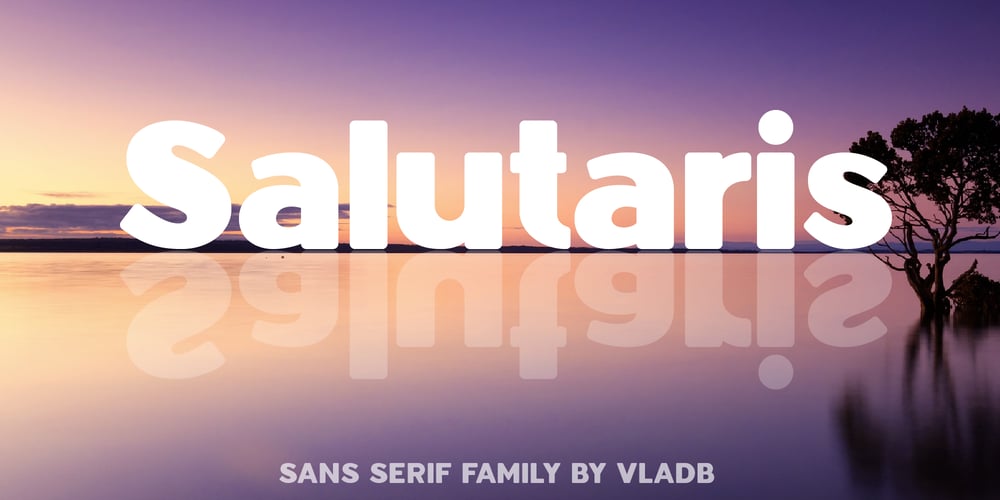
Salutaris Font Family was designed by Volodymyr Berla and published by VladB. Salutaris contains 8 styles and family package options. Salutaris is a modern sans serif geometric font with rounded edges, includes upper and lower case characters, Latin, Cyrillic, Latin Eastern Europe, Turkish, Baltic and other.The Salutaris family consists of 8 fonts, divided into 2 subgroups (according to the type of style – St, Op), and have the 4 types of thickness in each subgroup.Salutaris fonts will be useful in developing a brand, creating posters and other graphic products, and for word processing.